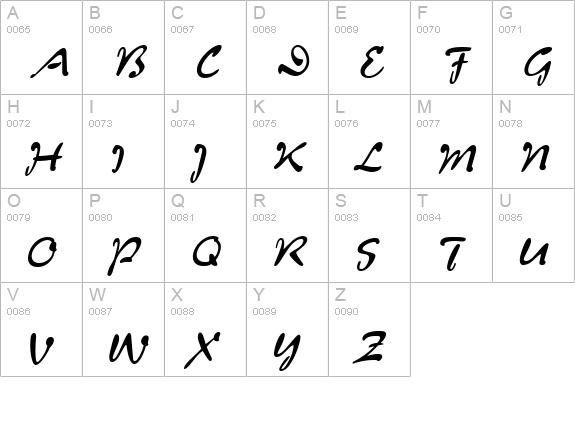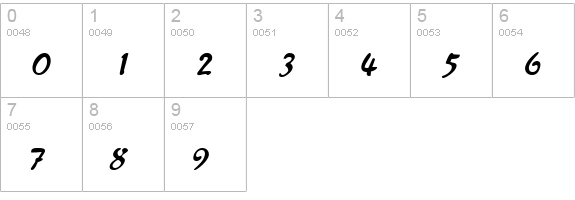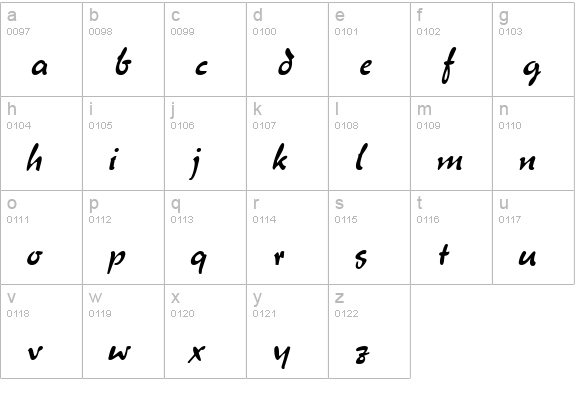
Menthol Italic Font Details
Menthol Italic is a distinctive, italic variant in the Menthol typeface family \xE2\x80\x94 well suited to design and typography projects.
Menthol Italic font is a sleek and modern typeface that exudes sophistication and elegance. Its stylish slanted design adds a touch of flair to any project, making it perfect for both creative and professional uses. The italicized letters give a sense of movement and dynamism, making this font ideal for conveying a sense of energy and momentum. Best of all, Menthol Italic font is available for free download at FontsMarket.com. This means you can easily access this high-quality font without any cost, making it a valuable addition to your font library. Whether you're working on a design project, creating marketing materials, or just looking to add a touch of style to your personal projects, Menthol Italic font is sure to impress with its versatility and charm. Download it today and elevate your designs with this beautiful and modern typeface.